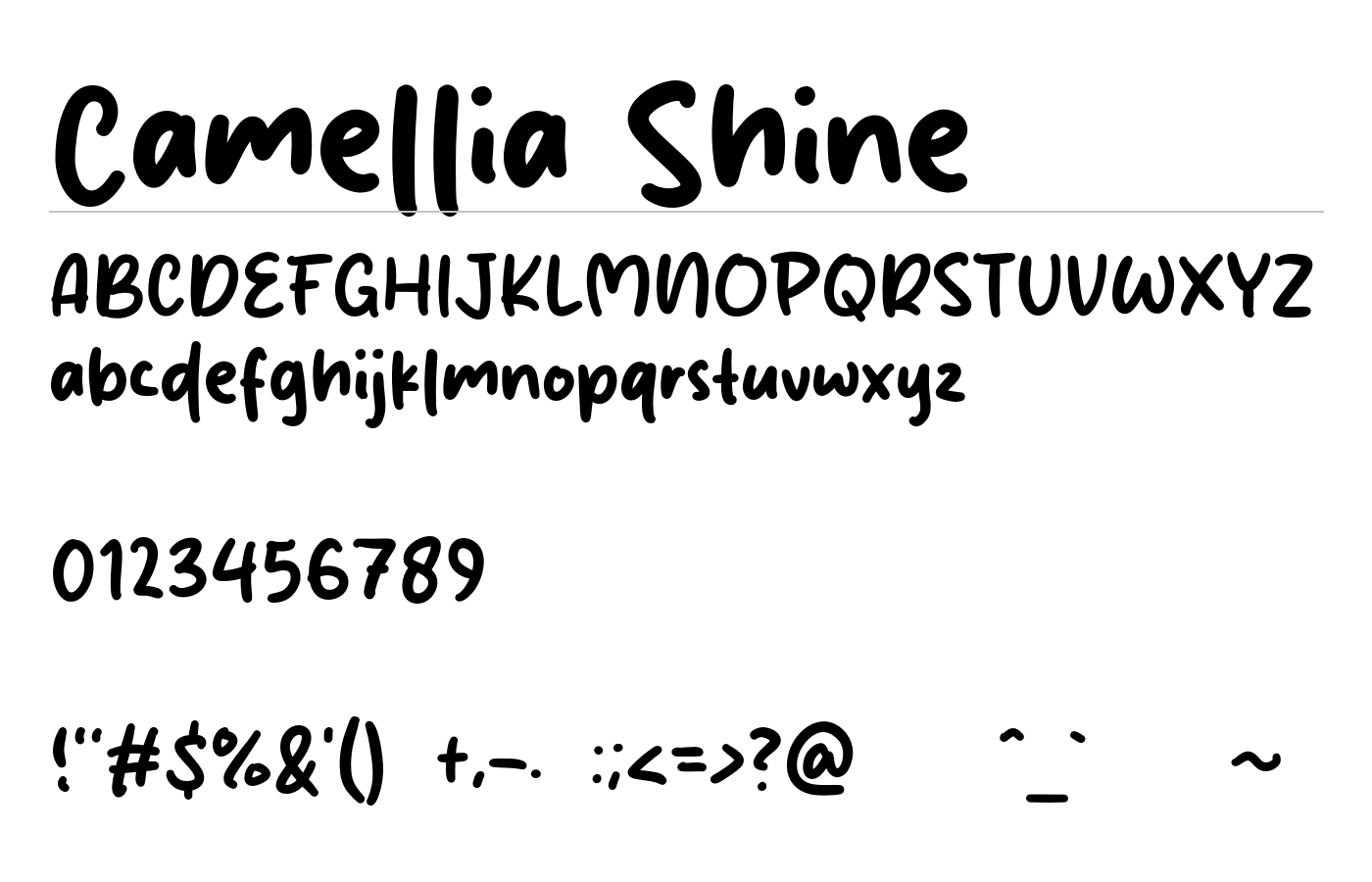
Camellia Shine is a casual, hand-drawn sans serif font with a friendly and approachable look. Its medium weight and rounded, slightly irregular strokes give it a lively, informal feel, making it ideal for playful branding, greeting cards, and creative projects that want to convey warmth and personality. This font works well in headlines, logos, and informal text where a human touch is desired.
Camellia Shine Font
About Camellia Shine Font